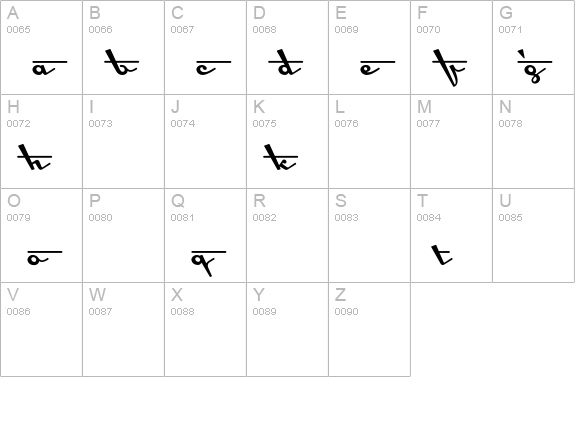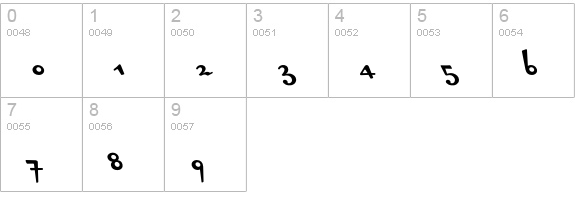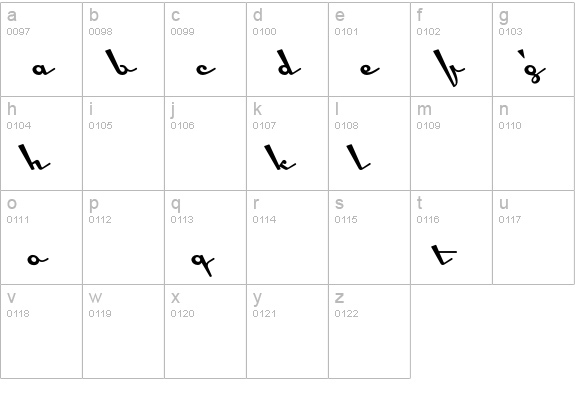
CottingleyOutgoing Font Details
CottingleyOutgoing font is a versatile and stylish typeface that exudes a sense of playfulness and creativity. With its unique letterforms and charming personality, this font is perfect for a wide range of design projects, from branding to social media graphics. The smooth curves and elegant lines of CottingleyOutgoing give it a modern and sophisticated look that will make your text stand out. Best of all, CottingleyOutgoing font is completely free to download at FontsMarket.com. Whether you're a professional designer looking for a new addition to your font library or just someone who wants to add a touch of flair to their personal projects, CottingleyOutgoing is the perfect choice. Download it today and let your creativity shine with this beautiful and freely available font.